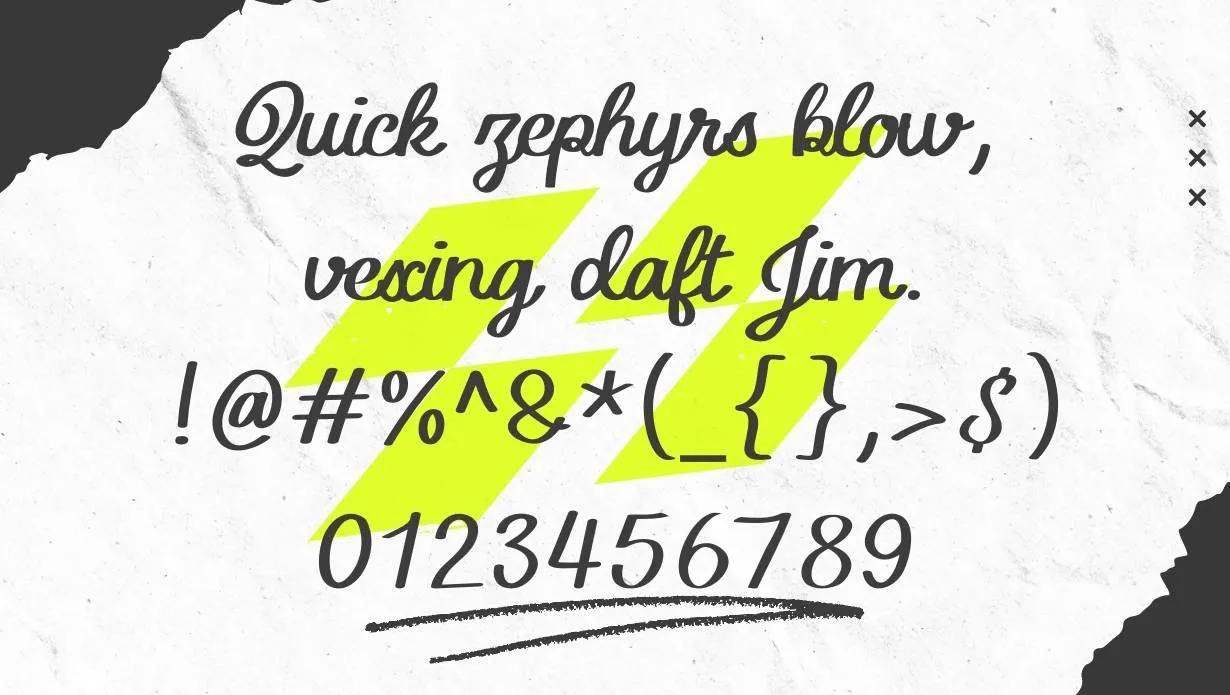
New Wishes Modern Script Font
Representing you a captivating, Charming, gorgeous as you wish to describe it, that is reputed as New Wishes Modern Script Font. This extra cool and connected letterforms typeface style has been designed by Fontles.
This typeface family comes in two version that are OTF and TTF and the font style contains Uppercase, Lowercase, Numbers, Punctuation, Symbols and special glyphs also. This denaturized typeface contains OpenType layout, Digitally Signed, and Postscript Outlines likewise.
Because of its swash display and handwritten visual, the typeface is fulfilled with all the designer\’s necessities. If you are a feminine designs artist or you have a cosmetic and perfume kind brand then this font New Wishes Modern Script Font would be a great idea for you. The font is also numerous systematic and useful in the present and future age.